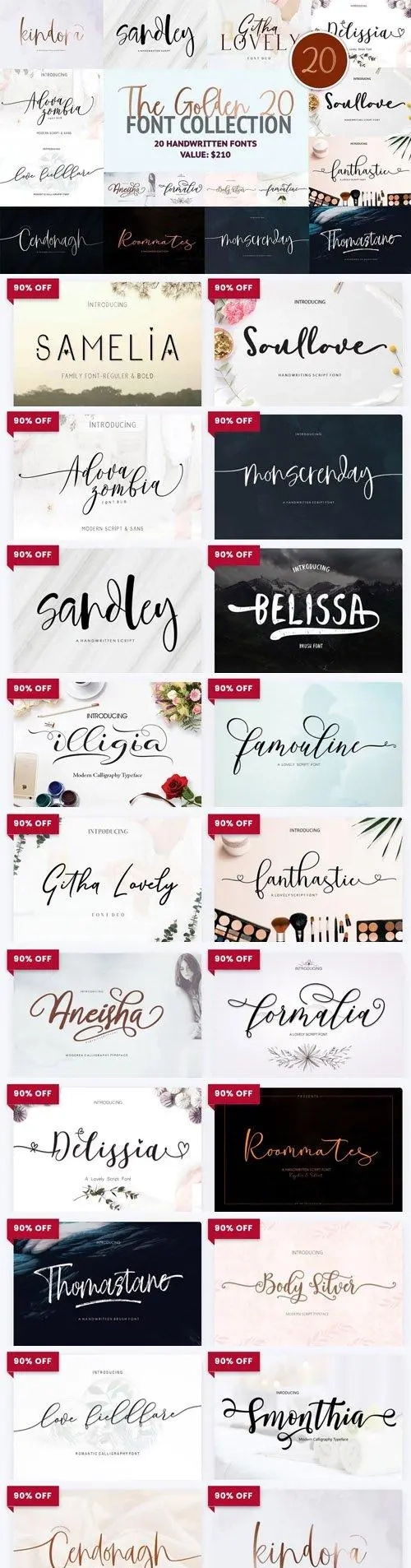
The Golden 20 Premium Font Collection
The Golden 20 Premium Font Collection offers a diverse range of typefaces designed to elevate your creative projects. This collection includes 20 unique fonts, each crafted with attention to detail, ensuring versatility for various applications.
• 20 distinct font styles
• Multiple weights for each font
The fonts in this collection include serif, sans-serif, script, and display styles, making them suitable for branding, logos, print materials, and digital interfaces. Each font is designed to maintain legibility and aesthetic appeal across different sizes.
Utilize these fonts for creating eye-catching logos, engaging marketing materials, or stylish web designs. Mix and match styles within the collection to achieve a cohesive look for your projects.